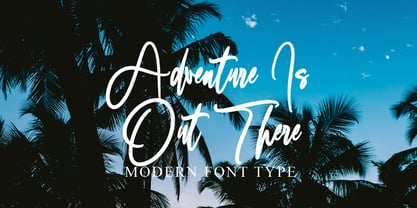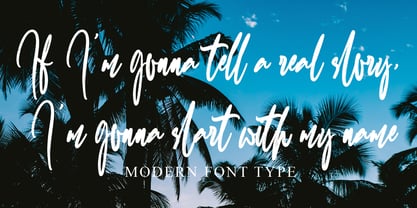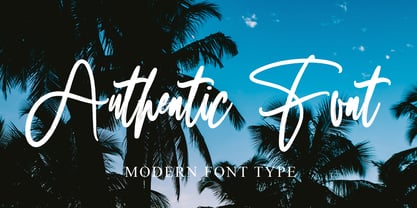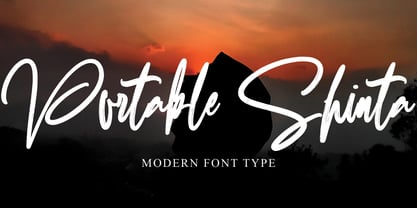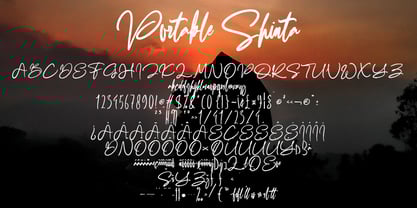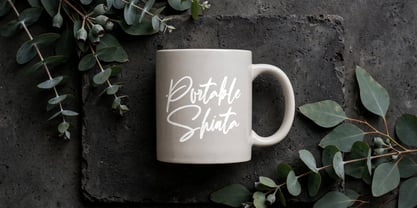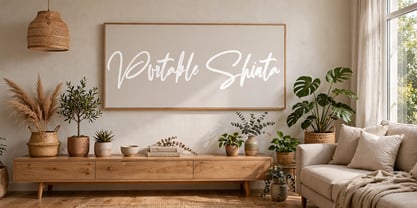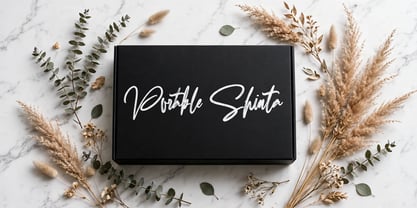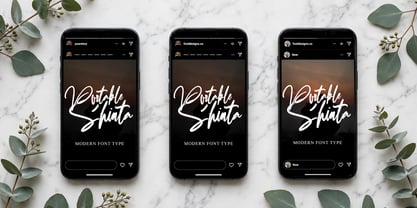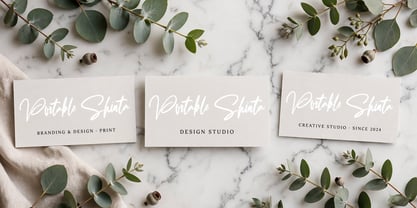
Portable Shinta
by Ayska
The Portable Shinta Font Family was designed by Dhoni Trihatmoko and published by Ayska. Portable Shinta contains 1 styles. More about this family
Experience the captivating world of Portable Shinta, an extraordinary font that masterfully fuses modern flair with the enduring grace of calligraphy. This versatile font exudes polished finesse, setting it apart as a vital element for all creative endeavors. With Portable Shinta, turn your blog posts into riveting reading experiences, introduce unique charm to your digital planner layouts, transform your party invites into captivating call-to-action pieces, or add a dash of zest to your handmade greeting cards.
Explore the limitless refinement and whimsical hues of Portable Shinta and witness as it breathes new life into your carefully curated photo albums or personalized décor assortments. Its ability to turn commonplace digital designs into visually stunning narratives is exceptional. Enhance your artistic pursuits with Portable Shinta, and watch in astonished delight as your raw ideas blossom into awe-inspiring masterpieces. Succumb to the compelling charm of Portable Shinta's design prowess that converts your creative visions into extraordinary, radiant pieces of art.
Designers: Dhoni Trihatmoko
Foundry: Ayska